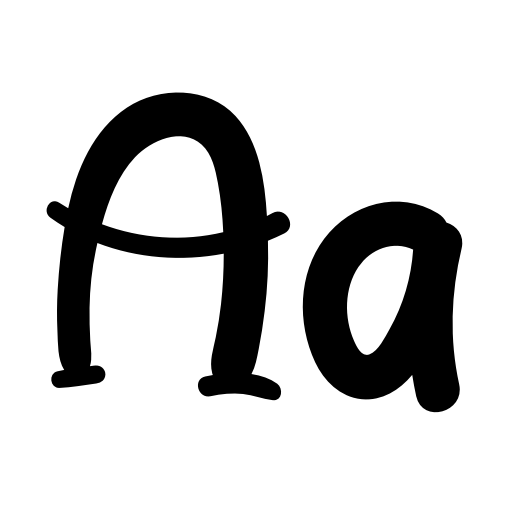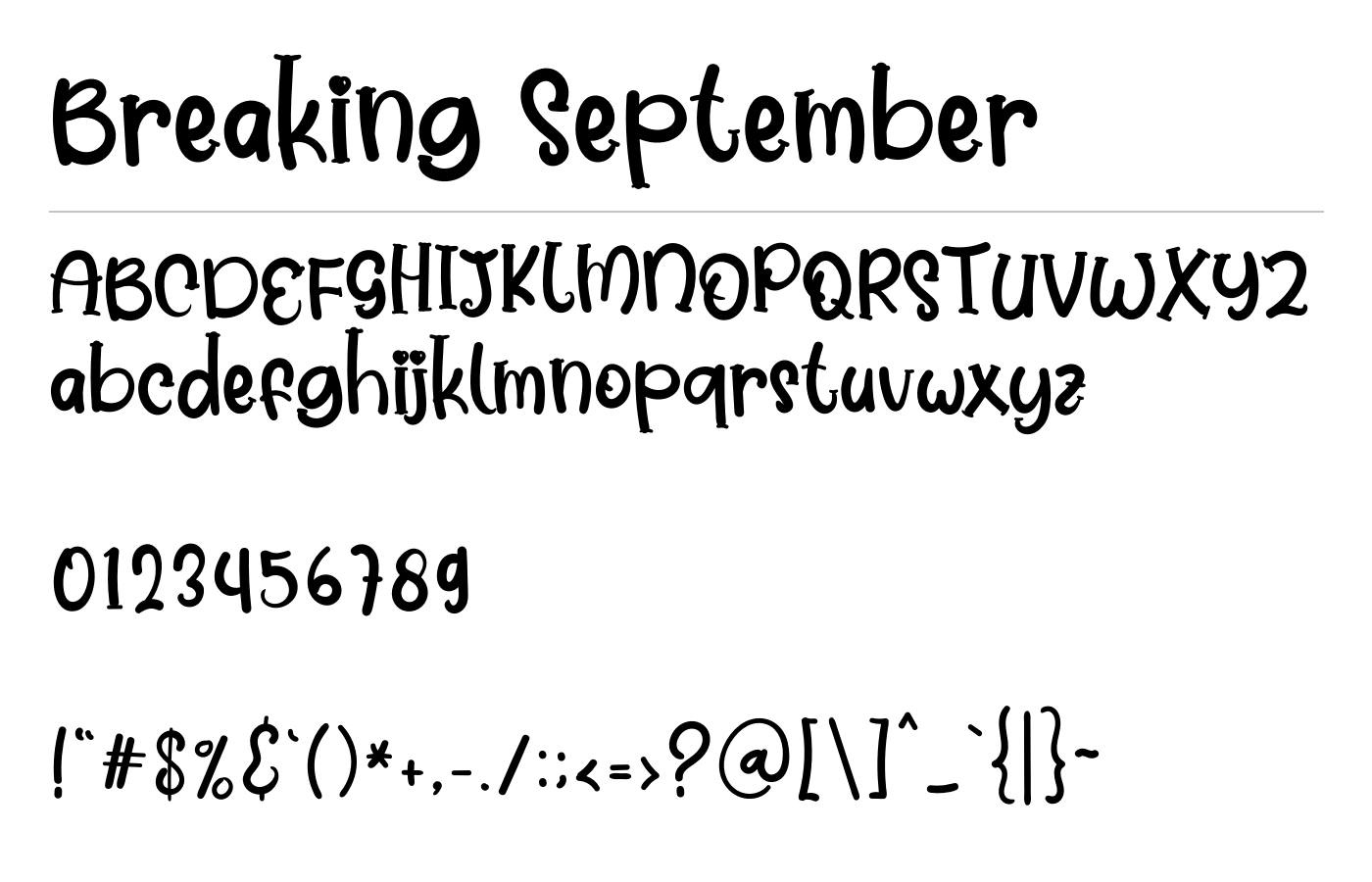
Breaking September is a playful and quirky handwritten sans serif font with a casual and friendly vibe. Its irregular stroke widths, whimsical letter shapes, and tiny heart details add charm and personality, making it ideal for creative and informal designs like children's books, fun logos, and lighthearted posters. This font brings a warm, approachable feel that works well for projects seeking a touch of individuality and cheerfulness.
Breaking September Font
About Breaking September Font
| Designer | Nur Edi Prayitno |